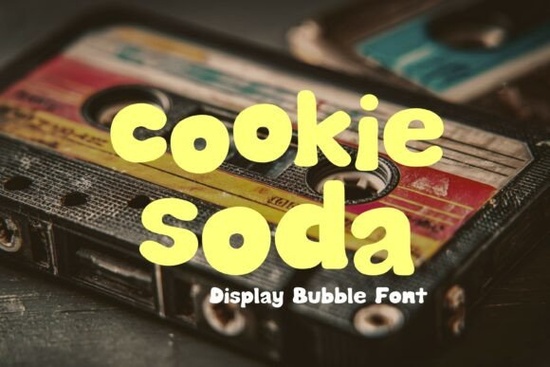
If you are looking for a typeface that instantly adds a fun, bubbly energy to your projects, the Cookie Soda Font is a fantastic choice. This chunky bubble font brings a playful, retro-pop vibe that works perfectly for both 70s vintage layouts and modern Y2K aesthetics. Whether you are designing a new logo for a bakery, creating stickers for your small business, or making apparel for your print-on-demand shop, this typeface gives your work a distinct, nostalgic feel without looking outdated.
What makes this typeface stand out for retro and Y2K projects?
The rounded, thick strokes of this typeface immediately draw the eye. It captures the essence of vintage soda shop signs and 70s pop culture, but it also fits right into the current trend of early 2000s digital art. When you are selling products on Etsy or running a print-on-demand store, standing out is crucial. Using a style that mixes old-school charm with current trends helps your items catch a shopper's attention and encourages them to look closer at your merchandise.
How can crafters and small businesses use it?
You can apply this style across a wide variety of physical and digital mediums. Here are a few practical ways to use it in your creative work:
- Apparel and Merch: Print it on t-shirts, hoodies, or tote bags for a trendy streetwear or retro diner look.
- Packaging Design: Use it for bakery boxes, candy wrappers, or beverage labels to make the product look sweet and inviting.
- Social Media Graphics: Create eye-catching Instagram posts or YouTube thumbnails that need a bold, friendly headline.
- Stickers and Planners: Design cute, chunky lettering for digital or physical planner stickers.
What other display styles pair well with it?
While this bubble style is great on its own, mixing different typefaces can add depth to your layouts. If you want to mix things up with a slightly rougher, textured look, you might pair it with a grunge style display typeface for visual contrast. For projects that need a glowing, theatrical vibe, a marquee-inspired lettering style works beautifully alongside it. If you prefer an empty center with bold borders, an outline version of a chunky font gives you a similar weight but a different visual texture. When you need something cleaner but still impactful for a modern brand, a double-line modern typeface provides a sleek contrast. Finally, if you want to keep the friendly vibe but need a highly readable option for longer text, a clean sans-serif display option balances out the heavy bubbles.
Are there any tips for getting the best results when printing?
When working with thick, rounded letters, the physical output matters. Keep these practical tips in mind:
- Watch your spacing: Because the letters are so wide, you might need to adjust the kerning or tracking so the words do not look cramped together.
- Check your print size: Very small text sizes can cause the inner curves to fill in with ink. Always test a physical sample before ordering a large batch of stickers or shirts.
- Use contrasting colors: This style shines best when there is a strong contrast between the text and the background. Try pastel colors on a dark background, or bright neon on white.
What should I check before finalizing my design?
Before you finalize your project, run through this quick checklist:
- Verify that the typeface matches the overall mood of your brand or product.
- Test the legibility at the smallest size it will be printed or viewed on a screen.
Take a few minutes to experiment with different color palettes. Trying out a few variations will help you find the perfect look for your next creative release.